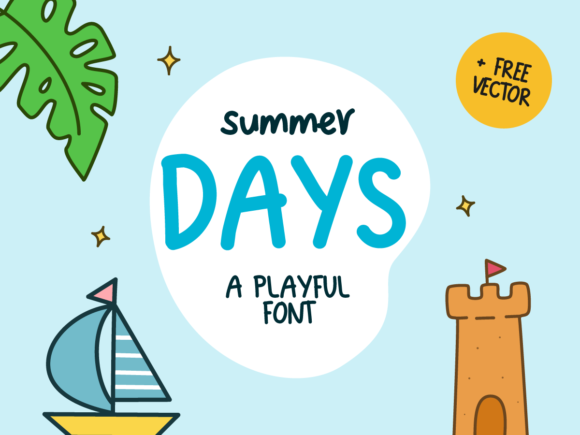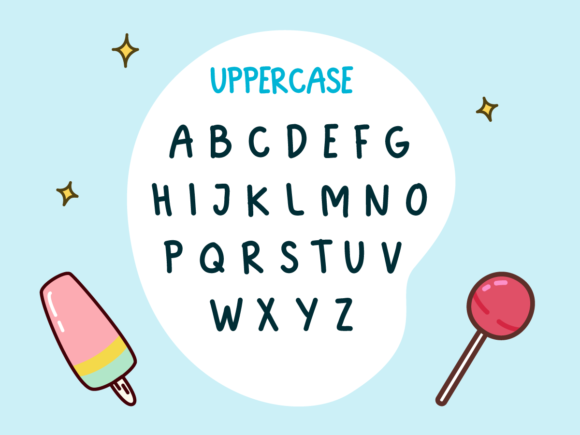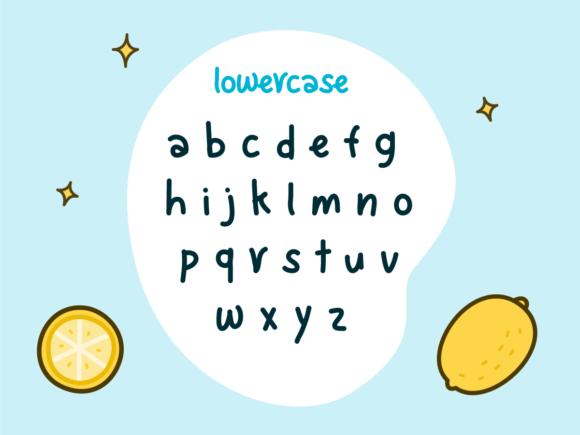
About Summer Days Font
Summer Days is a sunny and fun looking handwritten font. Its friendly feel makes this font incredibly versatile, fitting a wide range of contexts. Add it to your creative ideas and notice how it makes them stand out!